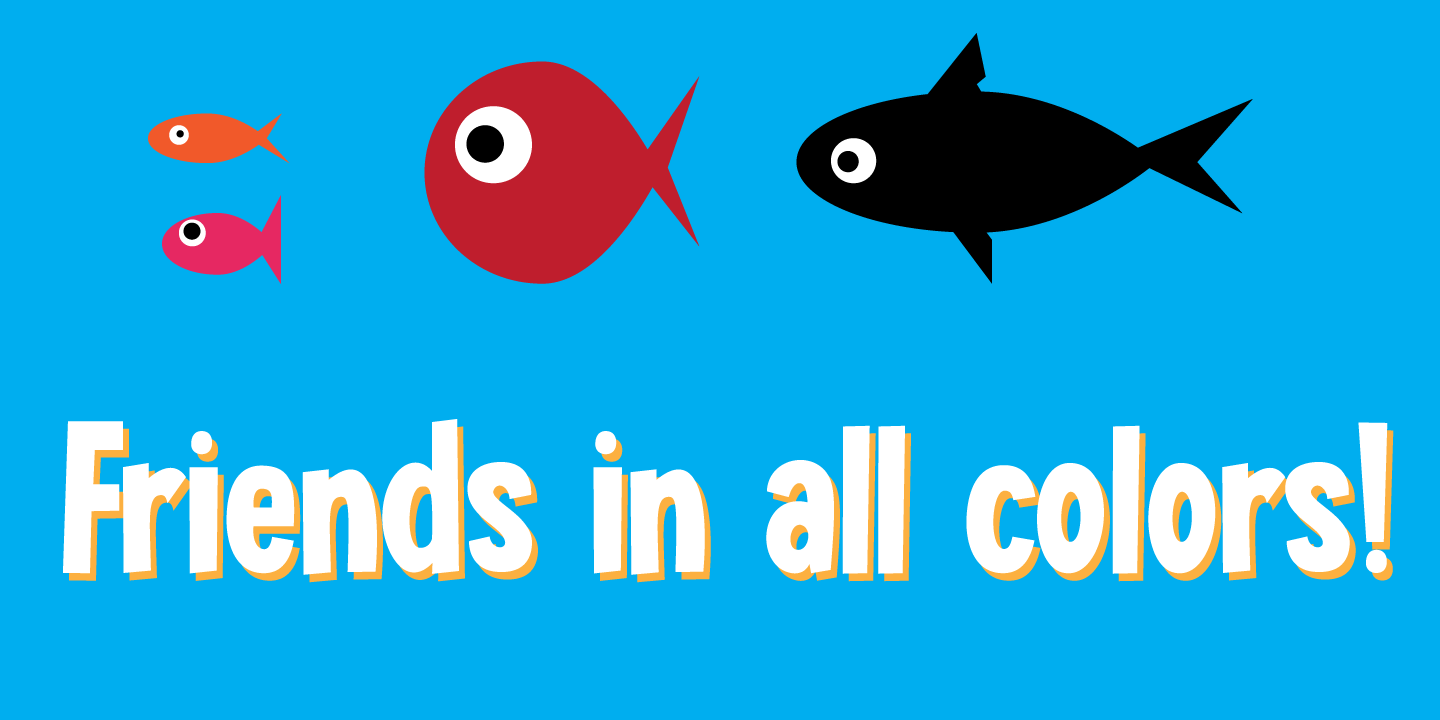
Lucky Goldfish Font is perfect for various applications including Chinese restaurant branding, Asian cultural events, fortune cookie packaging, feng shui design materials, lucky charm product labels, aquarium business logos, prosperity-themed marketing, lunar new year celebrations, meditation center signage, and harmonious lifestyle campaigns.
What makes Lucky Goldfish Font so exciting is its enchanting ability to capture the essence of good fortune and prosperity through graceful typography that radiates positive energy. This auspicious typeface features flowing, organic letterforms with gentle curves and harmonious proportions that evoke the peaceful movement of goldfish swimming through tranquil waters. The font's fortunate character and prosperity-inspired aesthetic make it ideal for brands that want to convey luck, harmony, and positive energy to audiences who appreciate Eastern philosophy, good fortune symbols, and peaceful living.
Lucky Goldfish Font family includes multiple weights and styles: Light, Regular, Medium, Bold, Flowing, Condensed, Extended, Prosperity, and gracefully swimming Italic variants. Each family member maintains the font's signature fortune while offering different levels of visual impact and stylistic flexibility for diverse cultural and wellness applications.
The Lucky Goldfish Font Free Download provides designers with access to a fortune-inspired typeface that excels in cultural and wellness markets. Whether you're creating authentic Asian restaurant identities, designing prosperity-themed marketing materials, or developing harmonious digital experiences, this font delivers the auspicious aesthetic needed to attract fortune-seeking audiences and wellness enthusiasts. Its flowing styling and lucky essence make it particularly effective for feng shui consultants, Asian businesses, and wellness-oriented brands.
Typography enthusiasts will appreciate the harmonious flow and peaceful energy in Lucky Goldfish Font's design. The font features naturally flowing letterforms with organic curves, optimized spacing for peaceful reading experiences, and carefully balanced proportions that ensure excellent readability while maintaining its fortunate character. From meditation center materials to prosperity marketing campaigns, this typeface maintains its luck and harmonious appeal across all wellness contexts.
For wellness web designers, Lucky Goldfish Font provides outstanding performance in peaceful digital environments and harmony-focused platforms. The font's technical specifications are optimized for calming user experiences while preserving the flowing, organic edges that define its fortunate character. Its versatility makes it suitable for both static wellness content and interactive prosperity experiences.
Creative professionals working in wellness, Asian culture, spirituality, and fortune-focused businesses will find Lucky Goldfish Font to be an essential tool for projects requiring harmonious visual communication. The font's ability to convey luck, peace, and positive energy makes it invaluable for brands targeting wellness-conscious and spiritually-minded demographics.
Design agencies specializing in wellness and cultural brands appreciate Lucky Goldfish Font's versatility in creating memorable fortunate identities.